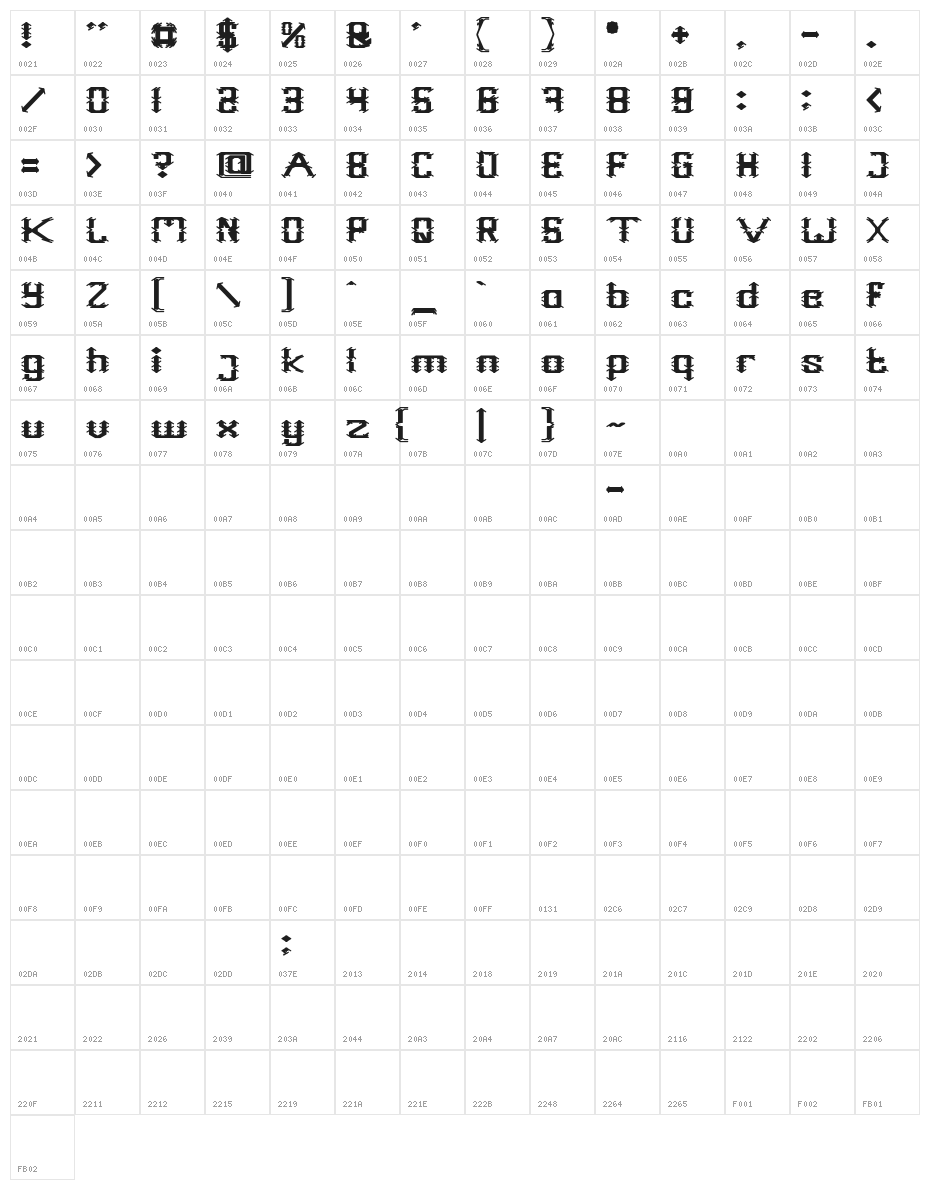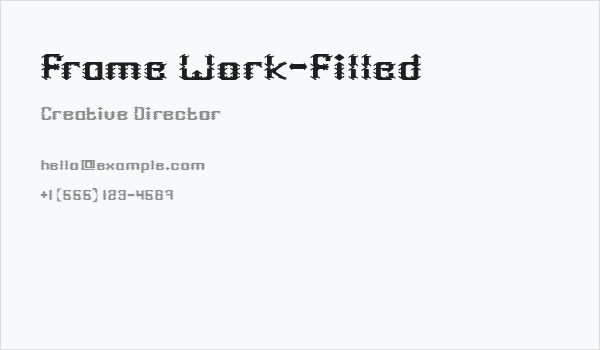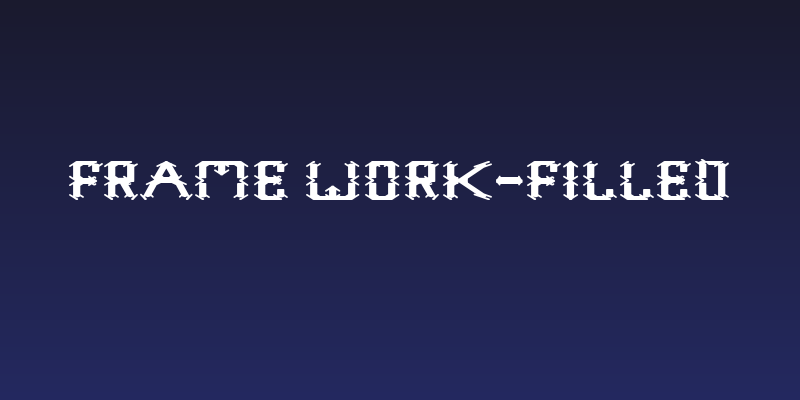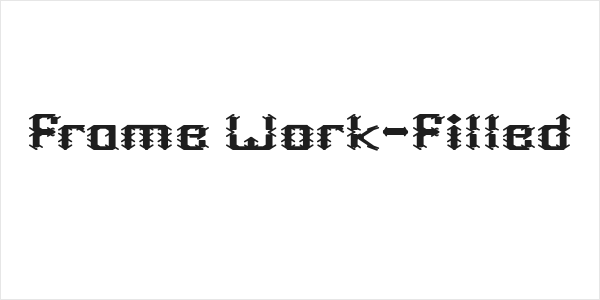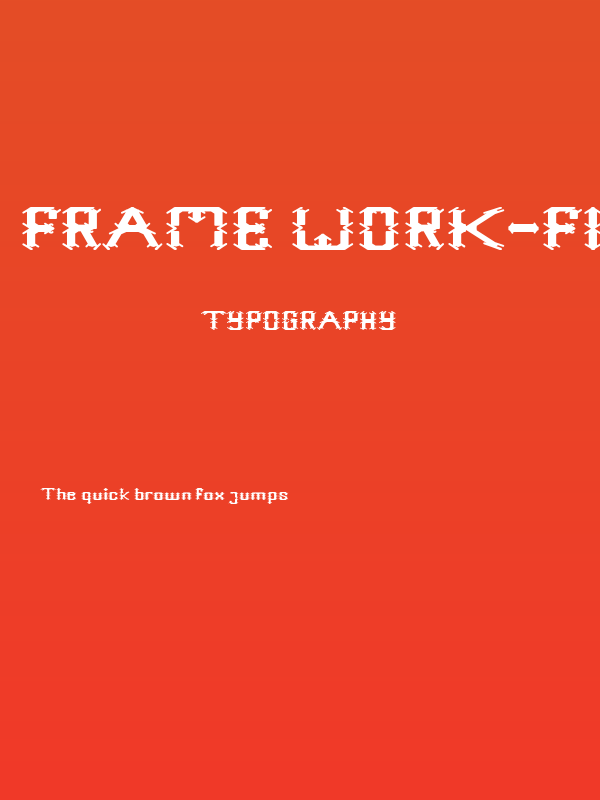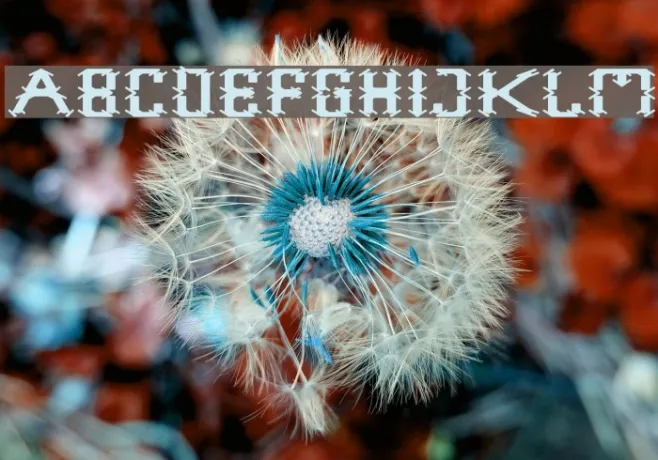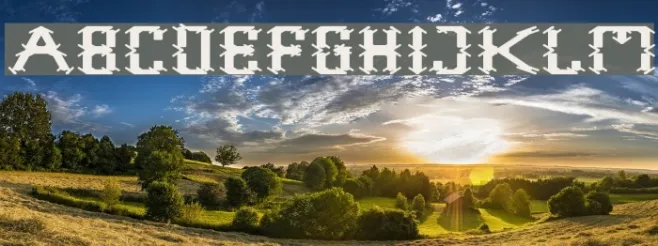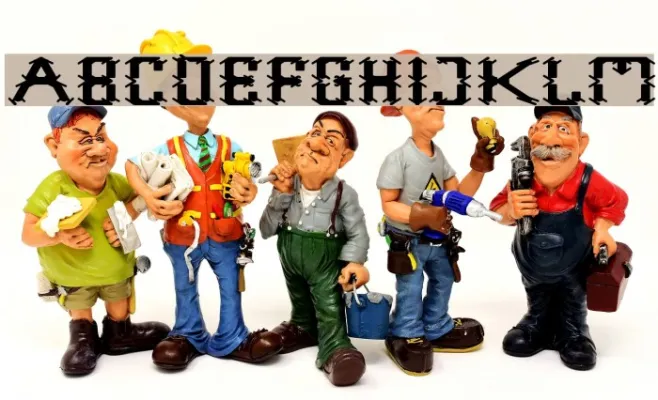
Frame Work-Filled Font
Frame Work-Filled Description
This font exhibits a bold and striking design, characterized by its angular and geometric shapes. The letters are constructed with sharp edges and pointed corners, giving it a distinct and aggressive appearance. Each character is filled with intricate patterns that resemble a framework or lattice, adding depth and complexity to the overall look. The uppercase and lowercase letters maintain a consistent style, with uniform height and width, creating a cohesive visual flow. Numbers and special characters are designed with the same attention to detail, ensuring a harmonious integration across all elements. This font's unique style makes it stand out, suitable for projects that require a bold and unconventional aesthetic.
| Proposed Projects | Ideal for poster designs, album covers, video game graphics, or any project needing a bold, edgy look. |